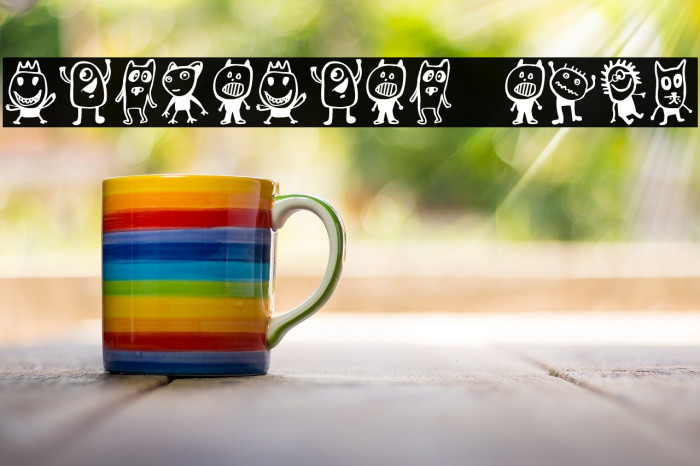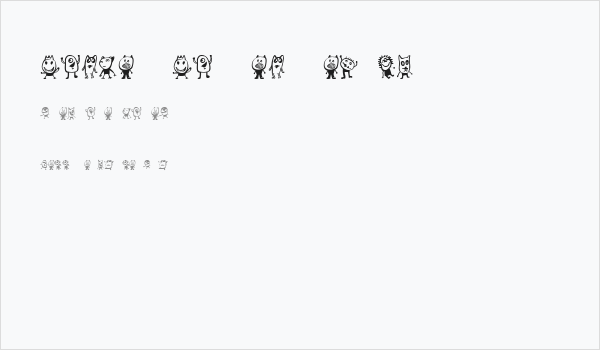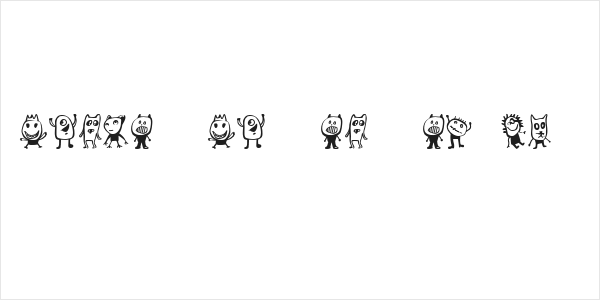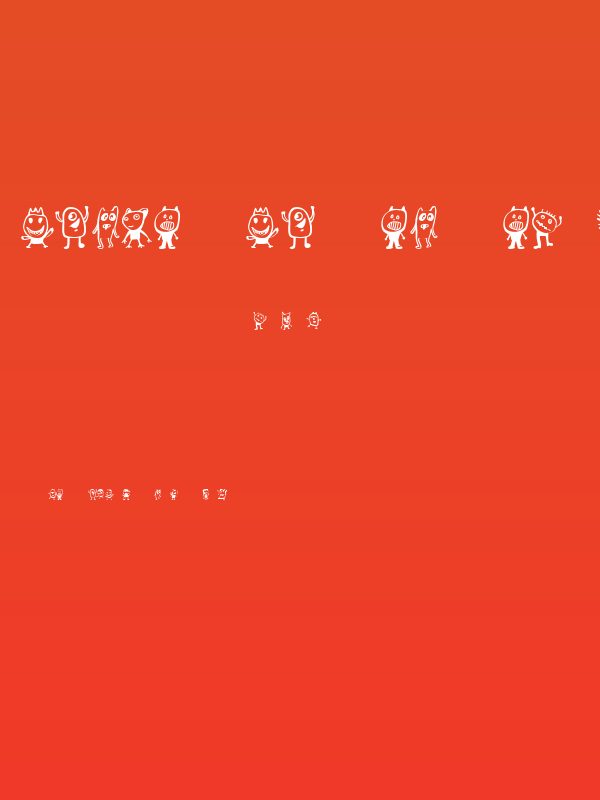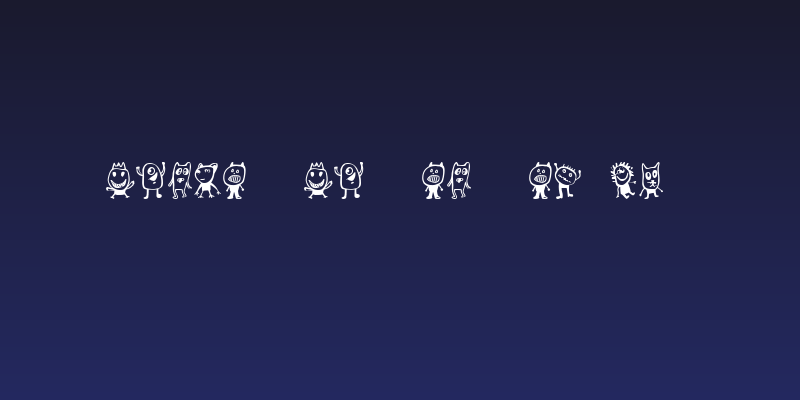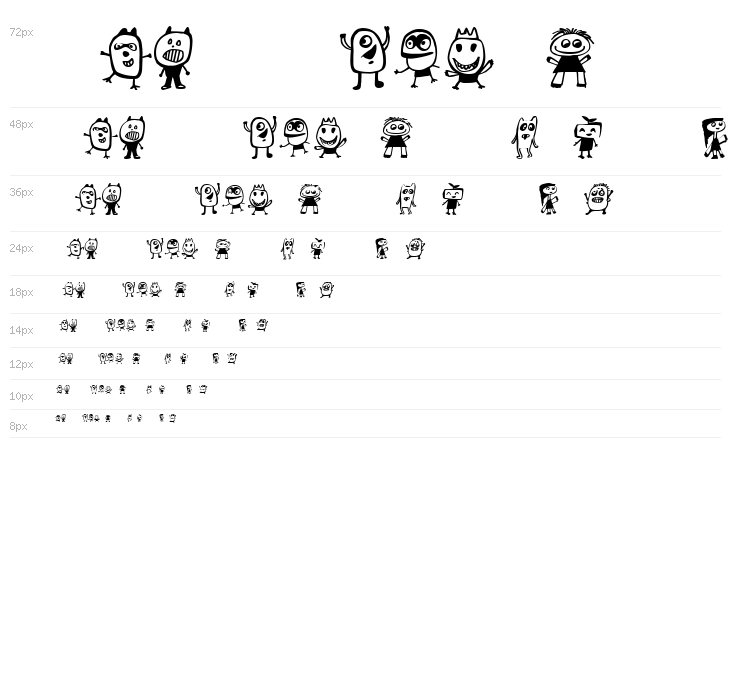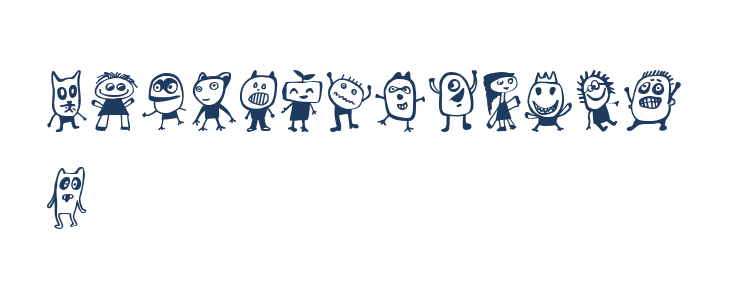
Kinderskizzen Regular Font
Kinderskizzen Regular Description
This font features a whimsical and playful design, characterized by a series of unique, hand-drawn characters that resemble quirky, cartoon-like creatures. Each character is distinct, with exaggerated features and expressive postures, creating a lively and imaginative aesthetic. The style is reminiscent of children's sketches, capturing a sense of innocence and creativity. The characters are bold and varied, with some having rounded shapes while others are more angular, adding to the dynamic and eclectic feel. This font is perfect for projects that aim to evoke a sense of fun and imagination, making it ideal for children's books, playful branding, or creative art projects.
| Overall Style | Playful, Whimsical, Creative |
| Use Case | Logos, Posters, Children's Books |
| Proposed Projects | Children's books, playful branding, creative art projects, educational materials. |